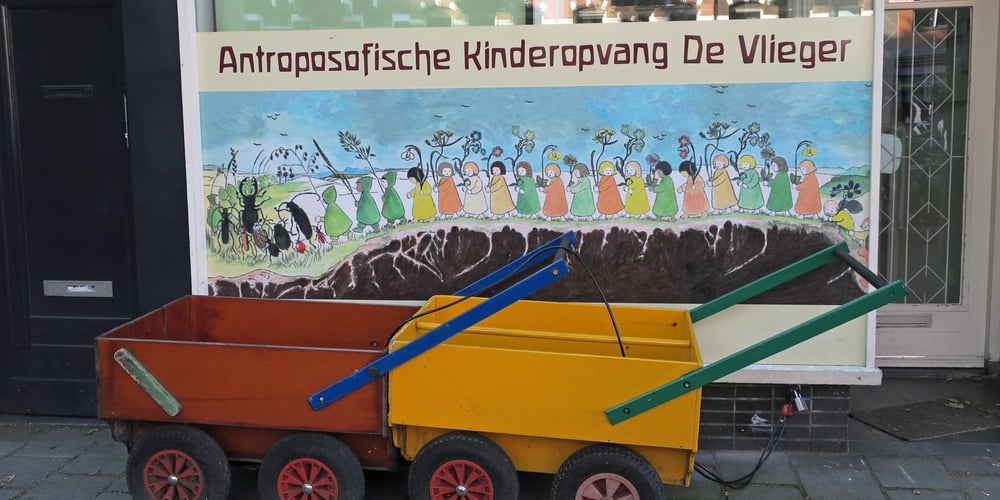
Waldorfschrift Font Family was designed by Joachim Frank and published by Joachim Frank. Waldorfschrift contains 8 styles and family package options. The Waldorfschrift family was created in digital form in the years 1993-1994 by Joachim Frank, inspired by the naturally organic letters from the anthroposophical movement of the 20th century of Rudolf Steiner. In nature there are no right angles, straight lines or complete uniformity, but instead round corners, varying thicknesses and all kinds of variability. This is what the anthroposophical movement created in their buildings, their art, in their music – and also in their lettering.And this Font is like the plants in nature: it grows upwards, branches out, letters hugs to some letters, with others they keeps more distance, some letters proudly stretch their belly, others crouch in the corner – a completely natural font. Take a look at the brand of Weleda (the natural cosmetics company), Demeter (one of the biggest organic foods companies), Filderklinik (a great anthroposophical hospital in Germany) and you will see these great companies work with different but organic letter styles. More recently, Joachim revisited the Waldorf fonts with modern type design software and added extra characters such as the euro sign, and extra weights to make the fonts useable for a wide variety of design tasks.Dez 21: A big update: All fonts have been digitized again and given a complete character set, new kerning, minor bugs removed.